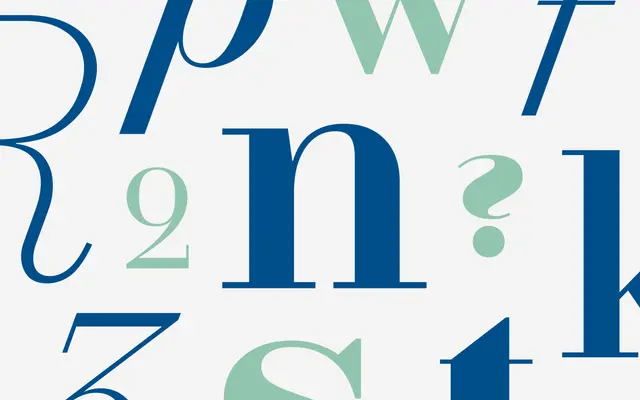
Perenelle Serif
Dalton Maag · Robert Pratley
A warm, dignified serif by Robert Pratley designed to partner Perenelle Sans, across nine weights with italics.
A contemporary serif by Robert Pratley, drawn to partner Perenelle Sans. Nine weights from Hairline to Black with matching italics and an XBold cut, supported by Weight, Width and Italic variable axes. Vertical stress, sharp-cut terminals, characteristic numerals and stacked fractions give it a warm, dignified tone for editorial body, branding and longform reading. Shares shapes with Perenelle Sans, so the two function as one system.
Dalton Maag describe Perenelle Serif as a contemporary serif designed to support and complement its Sans cousin, with open letter shapes ensuring legibility and a warm, dignified tone, supported by extensive Weight, Width and Italic axes.